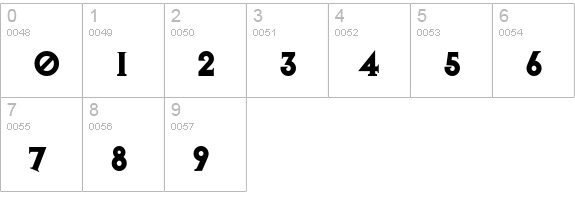
Diablo Heavy Font Details
Diablo Heavy is a heavy, high-impact variant in the Diablo typeface family \xE2\x80\x94 well suited to high-impact headlines, posters, and display advertising.
Diablo Heavy is a bold and commanding font that exudes strength and power. With its thick, robust letterforms and sharp edges, this typeface makes a bold statement in any design project. Whether you're looking to create eye-catching headlines or striking logos, Diablo Heavy is sure to make an impact. What's even better is that Diablo Heavy is available for free download at FontsMarket.com. That's right, you can get your hands on this powerful font without spending a dime. So go ahead and add Diablo Heavy to your font collection today and unleash its full potential in your designs.